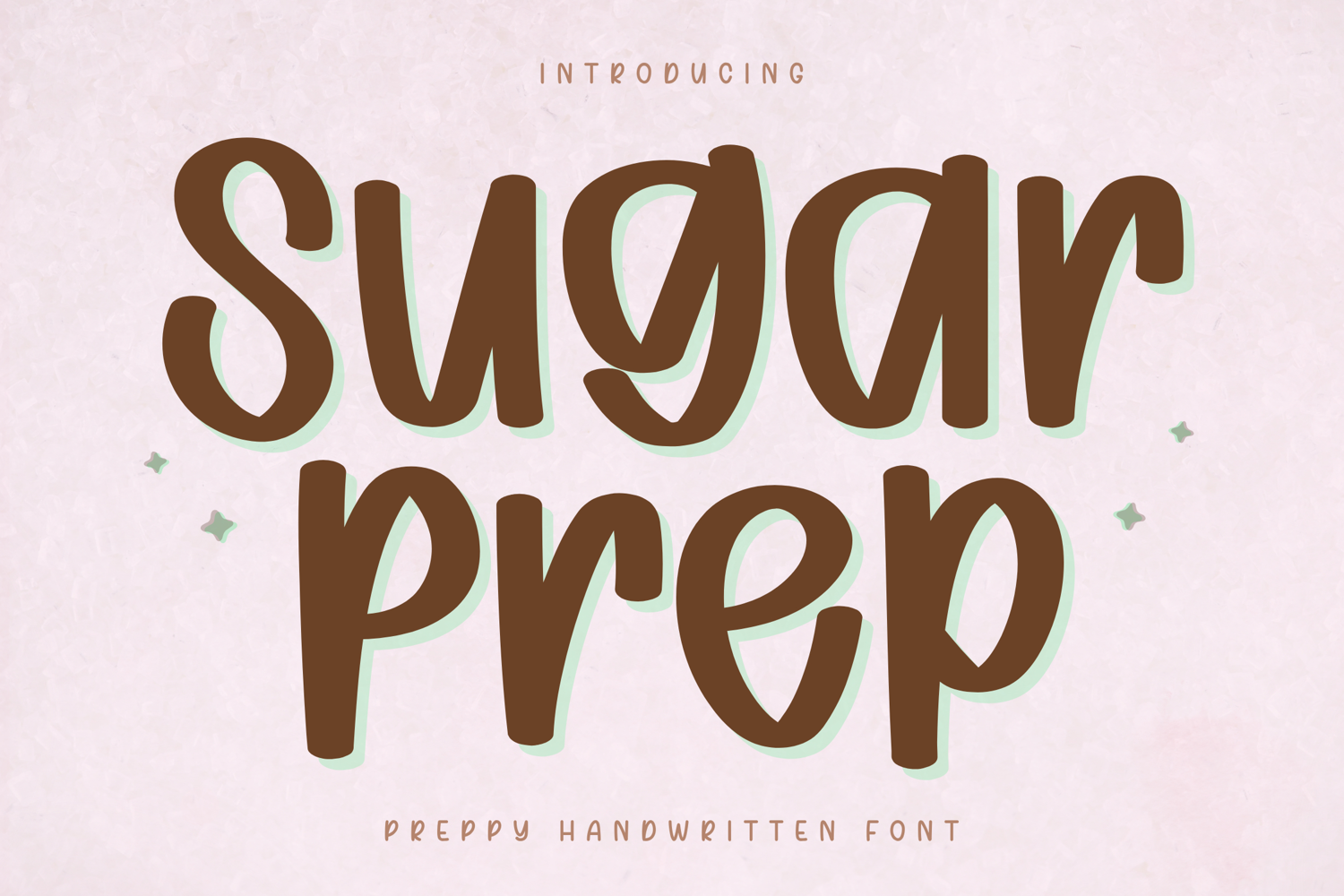
Sugar Prep - Preppy Handwritten Font
SugarPrep
Sugar Prep – Preppy Handwritten Font
Sugar Prep is a playful and stylish handwritten font designed to bring a fresh and trendy preppy vibe to your creative projects. With its smooth curves and slightly rounded letterforms, this font delivers a clean handwritten look while maintaining excellent clarity and readability.
Carefully crafted for versatility, Sugar Prep works beautifully across a wide range of applications—from branding and logo design to Cricut projects, digital planners, and social media content. Its smooth and consistent strokes ensure a clean and polished result, making it perfect for creative projects.
Sugar Prep is designed with smooth, clean strokes and balanced spacing, making it easy to use for both beginners and professional designers.